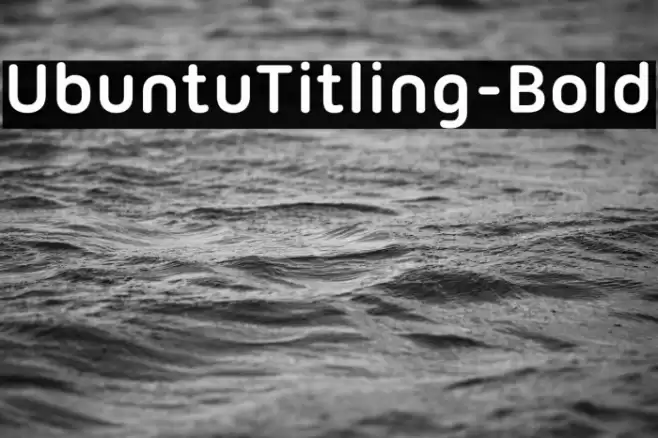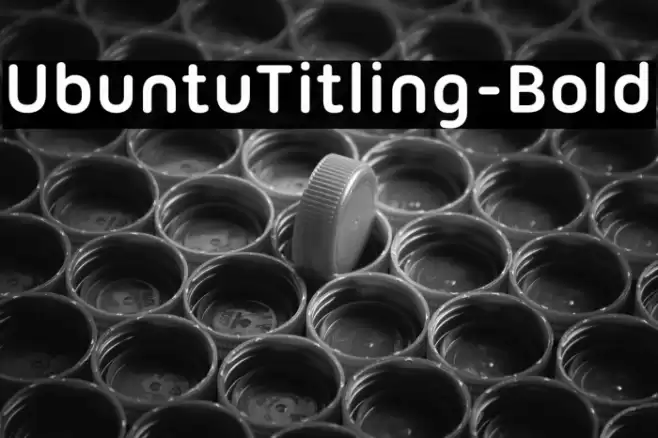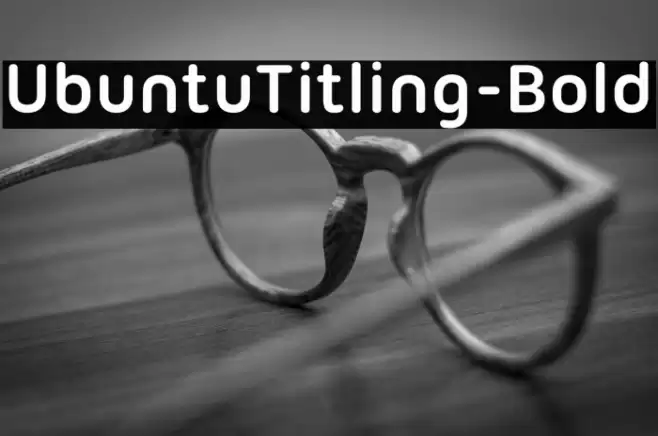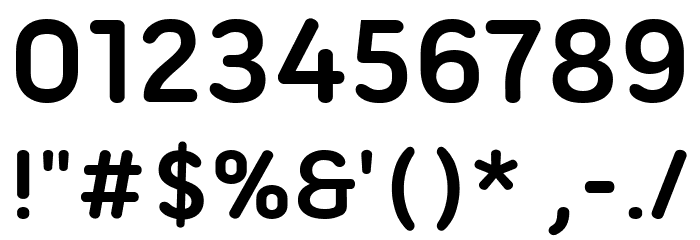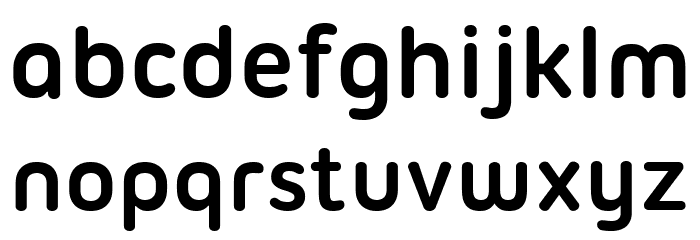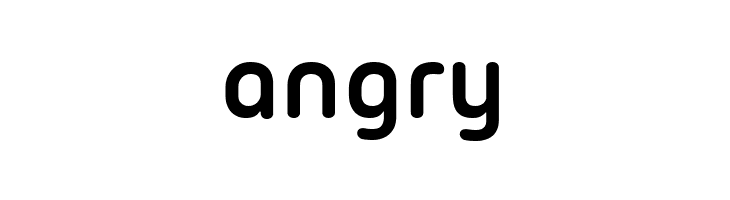
UbuntuTitling-Bold Font
UbuntuTitling-Bold Description
This font features a clean and modern sans-serif design with rounded edges, giving it a friendly and approachable appearance. The characters are well-proportioned, with a consistent stroke width that enhances readability. The uppercase and lowercase letters maintain a uniform style, while the numerals are clear and distinct. Special characters are designed with the same attention to detail, ensuring they integrate seamlessly with the rest of the typeface. The overall aesthetic is contemporary and versatile, suitable for a wide range of applications.
A modern sans-serif font with rounded edges and consistent stroke width from Regular fonts.
- Font: UbuntuTitling-Bold
- Proposed Projects: Ideal for branding, web design, user interfaces, and print materials where a modern and approachable look is desired.